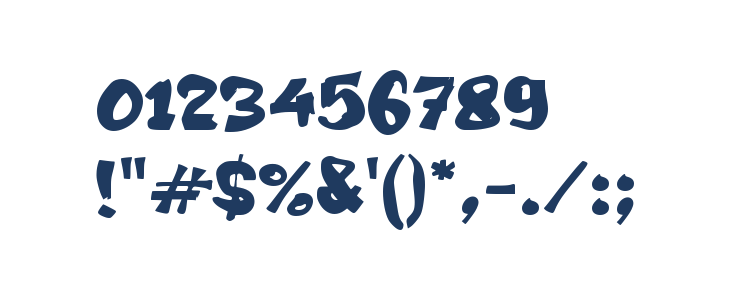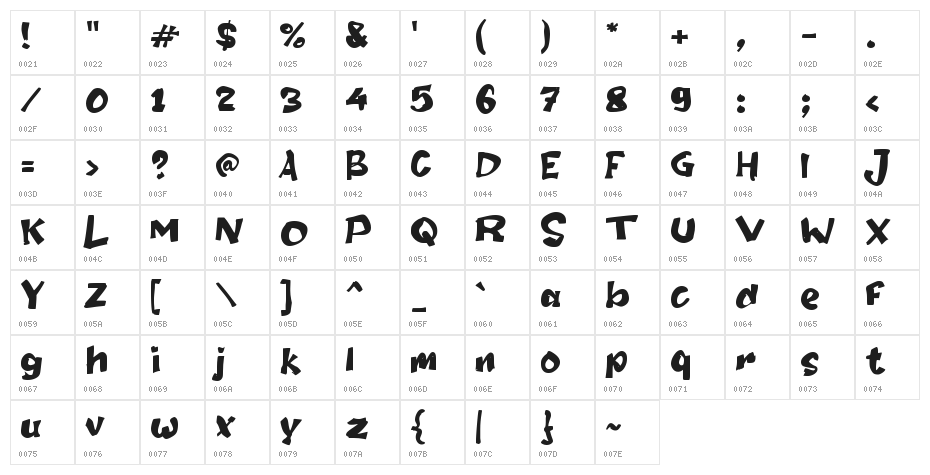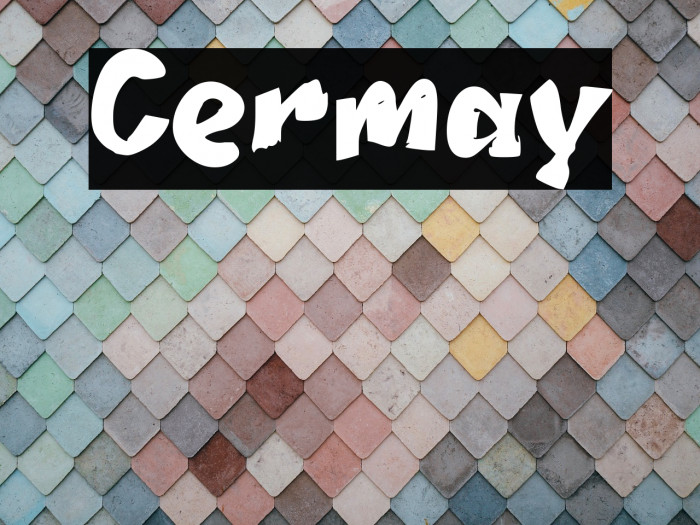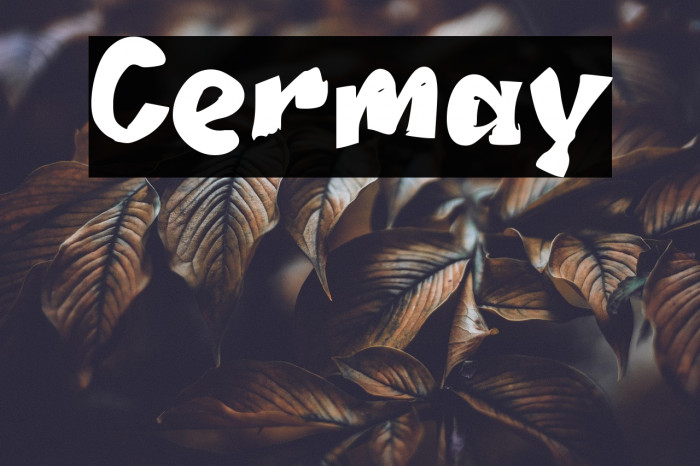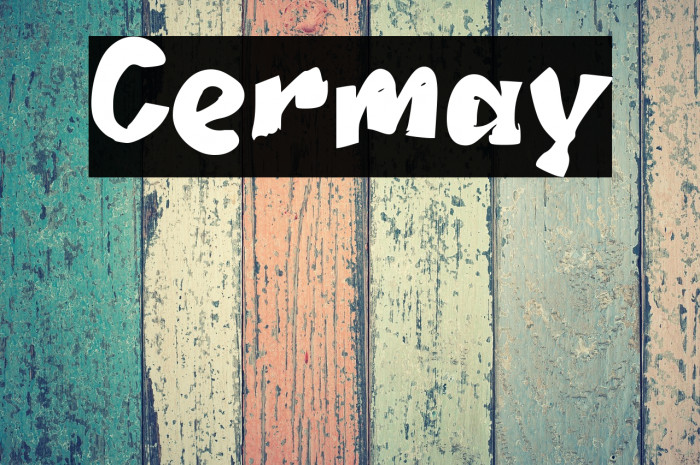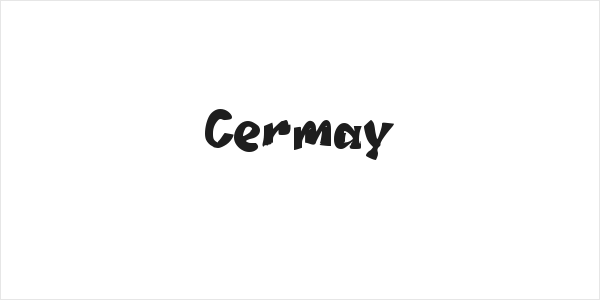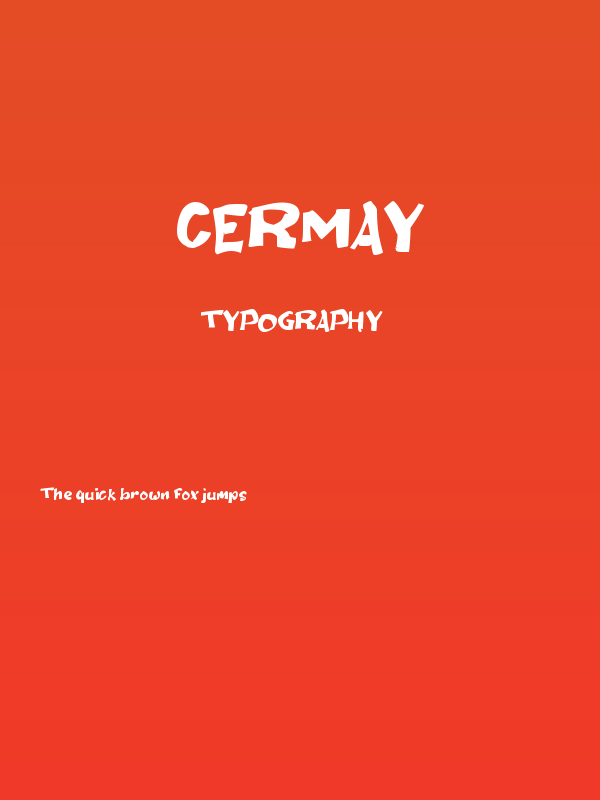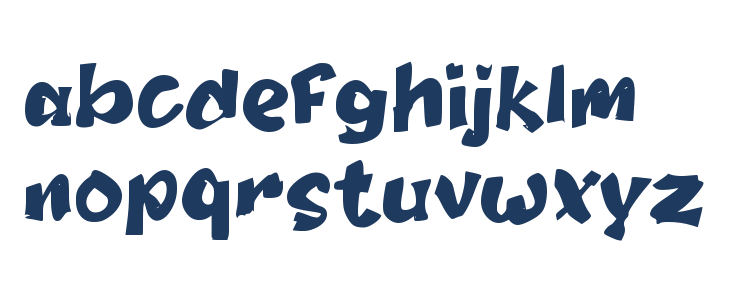
Cermay Font
Cermay Description
This font features a bold and playful style with a hand-drawn appearance. The characters have a slightly irregular shape, giving them a whimsical and informal feel. The strokes are thick and consistent, providing a strong visual impact. The uppercase and lowercase letters maintain a cohesive look, while the numerals and special characters complement the overall design. This font's energetic and dynamic style makes it suitable for creative and casual projects.
| Overall Style | Playful |
| Proposed Projects | Ideal for children's books, playful branding, casual invitations, and creative posters. |